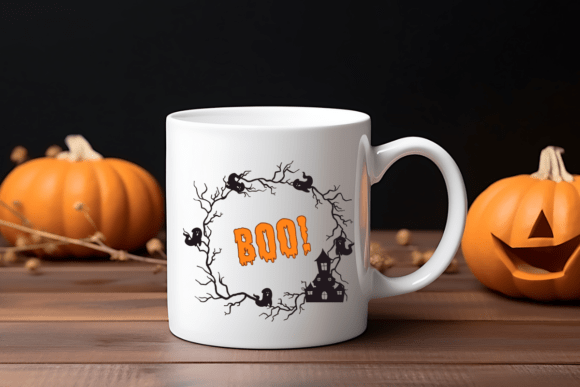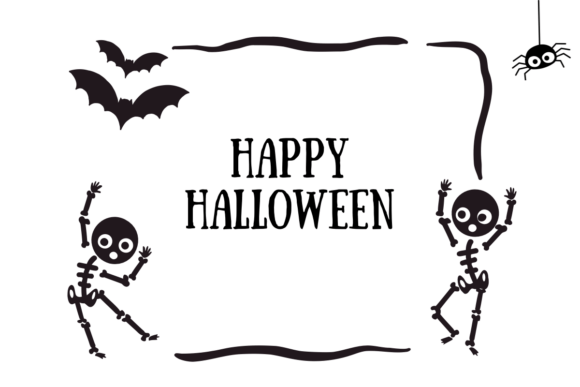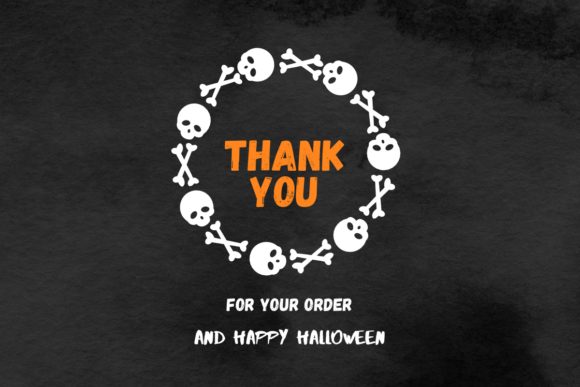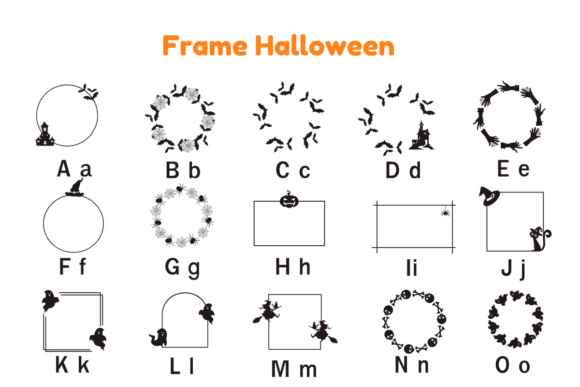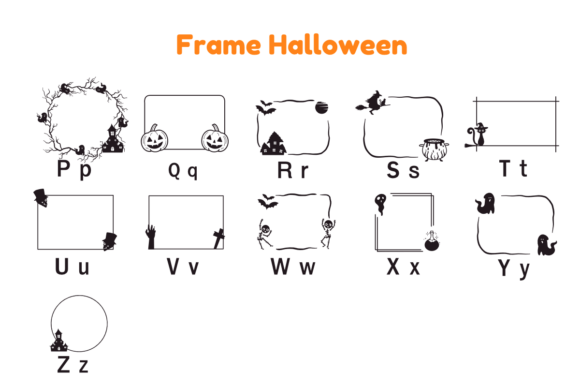
Unleash the Spookiness: Introducing Frame Halloween Font
Are you ready to add a dash of Halloween spirit to your designs? Look no further than the Frame Halloween Font, a spooky dingbat font that’s perfect for creating seasonal invites, party decor, scrapbook elements, and festive designs. This hand-drawn font is filled with a wide range of Halloween-themed frames that are sure to make your work stand out.
What is Frame Halloween Font?
Frame Halloween Font is a unique dingbat font that features a collection of hand-drawn Halloween-themed frames. Each frame is carefully crafted with spooky and festive elements, including bats, ghosts, pumpkins, and haunted icons. This font is designed to help you add instant Halloween flair to your work, making it perfect for designers, crafters, and DIY enthusiasts.
Key Features of Frame Halloween Font
- Hand-drawn Halloween frames: Each frame is uniquely designed and hand-drawn to ensure a personal touch.
- Spooky and festive elements: The frames feature a range of Halloween-themed elements, including bats, ghosts, pumpkins, and haunted icons.
- Perfect for seasonal designs: Frame Halloween Font is ideal for creating seasonal invites, party decor, scrapbook elements, and festive designs.
Uses for Frame Halloween Font
Frame Halloween Font is a versatile font that can be used in a variety of ways. Here are some ideas to get you started:
- Halloween party invites: Create spooky and festive party invites that will set the tone for your Halloween celebration.
- Scrapbook elements: Add a touch of Halloween spirit to your scrapbook pages with these unique frames.
- Party decor: Use Frame Halloween Font to create custom party decor, such as garlands, banners, and signs.
- Festive designs: Create festive designs for social media, blogs, or websites to get into the Halloween spirit.
Tips for Using Frame Halloween Font
Here are some tips to help you get the most out of Frame Halloween Font:
- Experiment with different frame styles: With a wide range of frames to choose from, experiment with different styles to find the one that works best for your design.
- Mix and match frames: Combine different frames to create a unique and eye-catching design.
- Use with other Halloween elements: Pair Frame Halloween Font with other Halloween-themed elements, such as graphics and illustrations, to create a cohesive design.
Frame Halloween Font is a must-have for designers, crafters, and DIY enthusiasts who want to add a touch of Halloween spirit to their work. With its hand-drawn Halloween frames and spooky and festive elements, this font is perfect for creating seasonal invites, party decor, scrapbook elements, and festive designs. So why wait? Get creative with Frame Halloween Font and unleash the spookiness in your designs!
- What type of font is Frame Halloween Font?: Frame Halloween Font is a dingbat font featuring hand-drawn Halloween-themed frames.